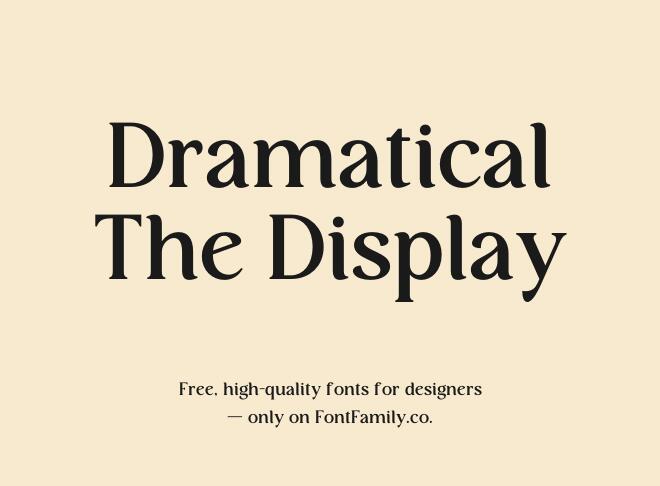
Dramatical The Display Font
Dramatical The Display Font, released in 2021 by Dramatical Foundry, is a modern, bold, and elegant font that perfectly suits a variety of design projects. Its distinctive style is characterized by its decorative elements, making it an ideal choice for display purposes. The font's strikingly bold letters, combined with a sleek modern touch, create a unique visual appeal that instantly captivates the viewer. Dramatical is perfect for logos, headlines, posters, branding, packaging, and much more. When compared to other fonts, Dramatical stands out with its unique blend of modern elegance and bold statement-making capabilities. Its versatility and captivating design make it a great choice for designers looking to add a dramatic flair to their projects. It's not just a font, it's a powerful design tool that can transform any design project into a masterpiece.
Author | Dramatical Foundry |